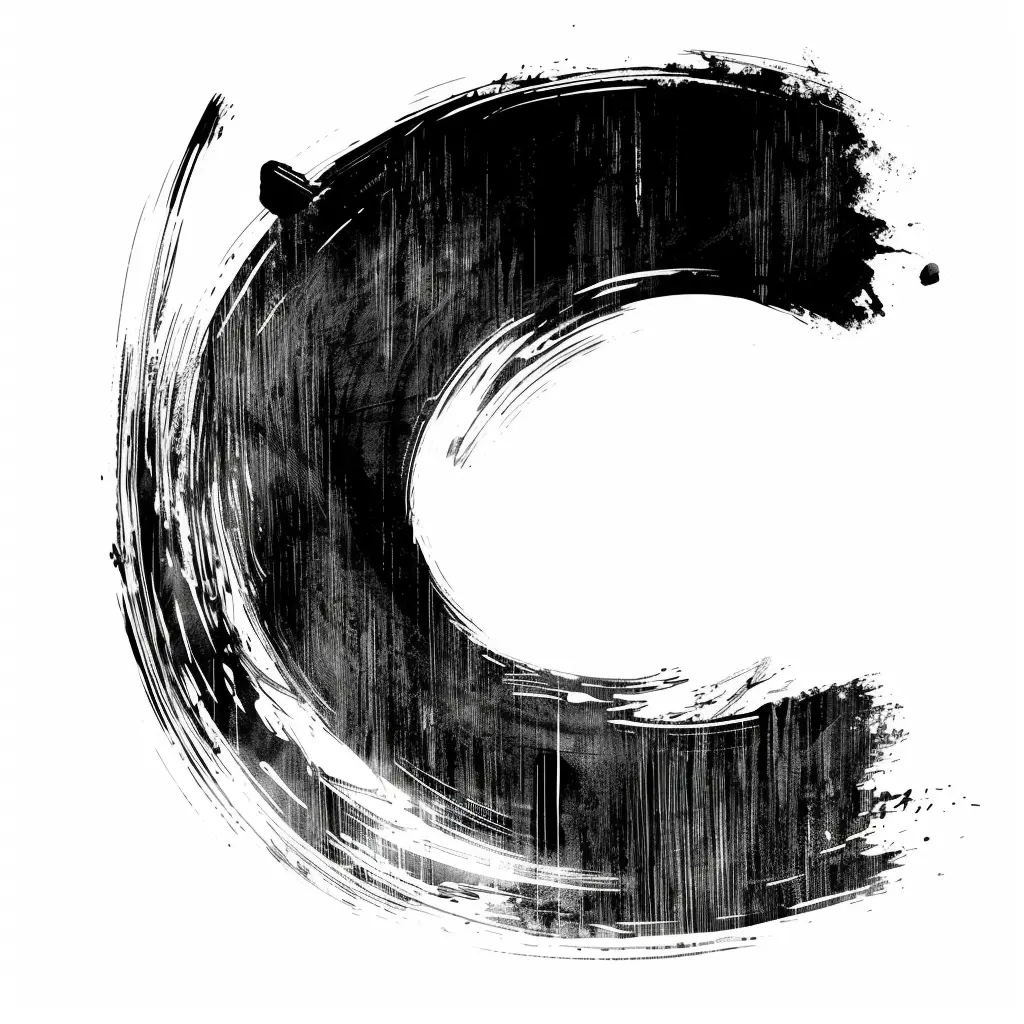
This image features a stylized, abstract letter "C" rendered in a bold, brushstroke-inspired design. The artwork uses a stark black-and-white color palette, with textured, dynamic strokes creating a sense of movement and depth. The circular form is defined by rough, expressive edges and subtle vertical lines, giving it a raw, artistic feel.